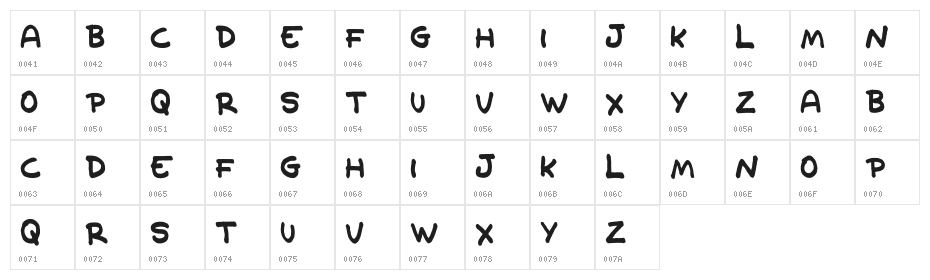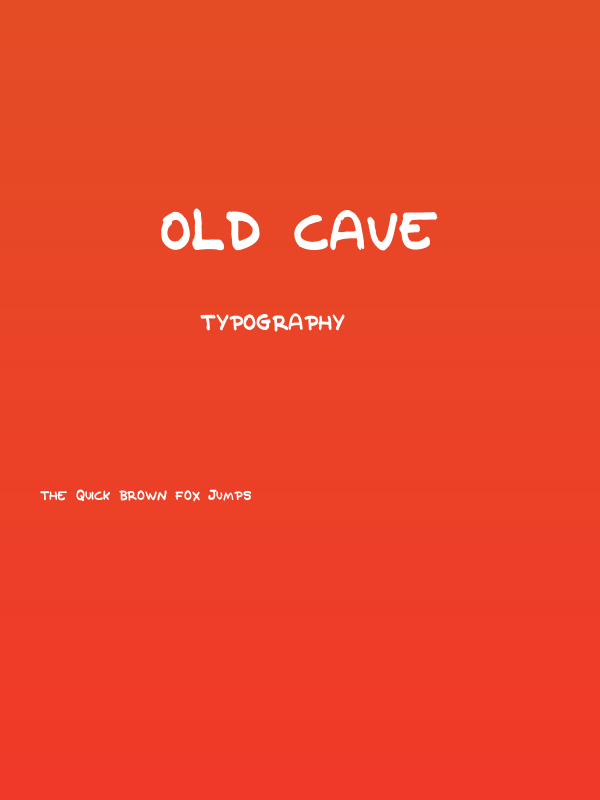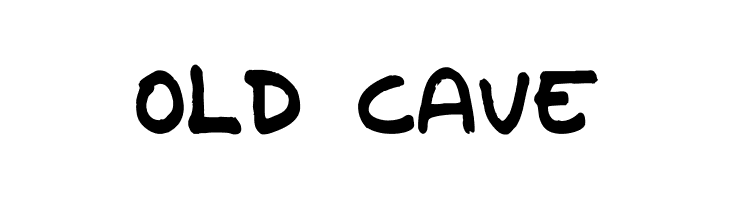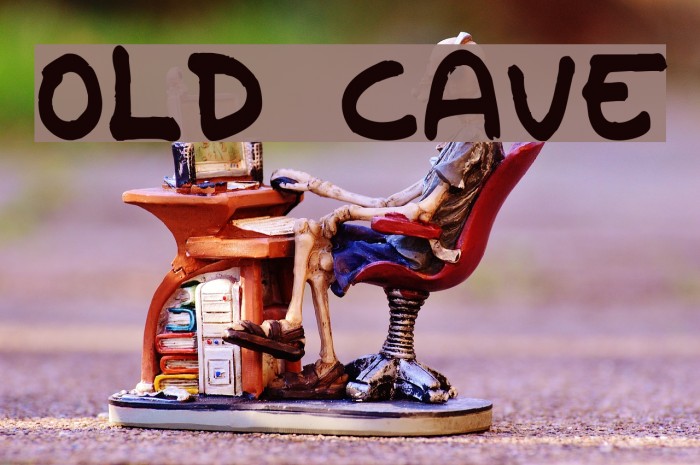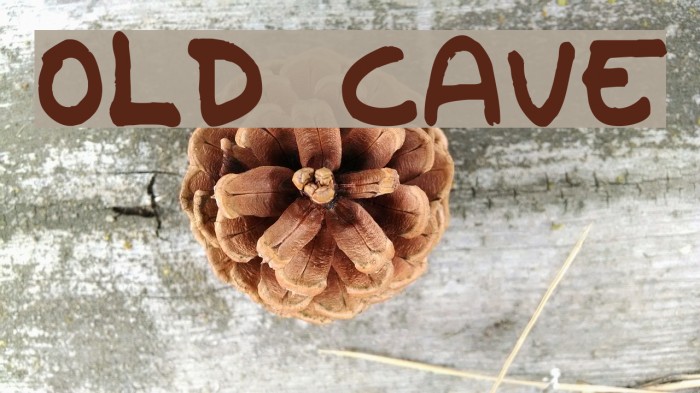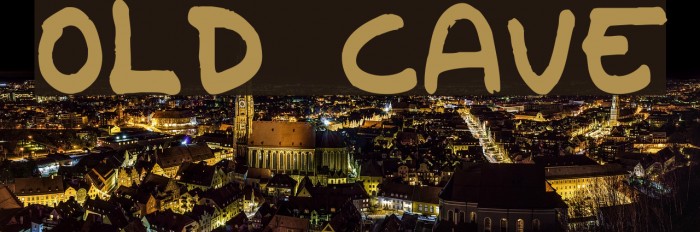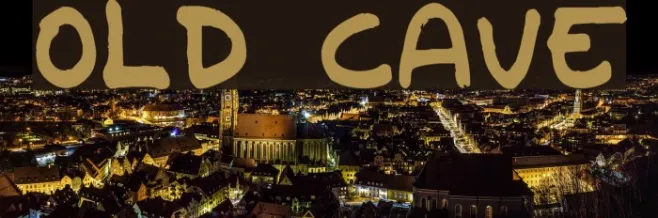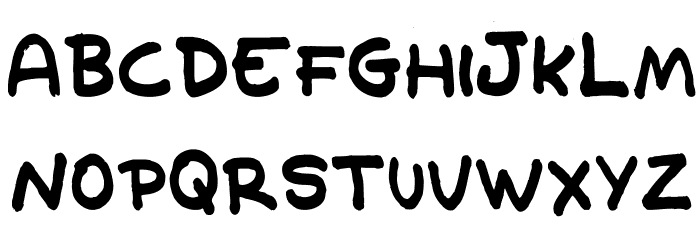
Old Cave Font
Old Cave Description
This font features a bold, hand-drawn style with a rugged and organic appearance. The characters are slightly irregular, giving them a natural and authentic feel reminiscent of ancient cave drawings. The strokes are thick and uneven, adding to the rustic charm. Each letter has a unique personality, with rounded edges and a playful, informal vibe. The font maintains a consistent weight throughout, ensuring readability while preserving its distinctive character.
| Overall Style | Rustic |
| Proposed Projects | Ideal for projects that require a natural, earthy aesthetic such as outdoor adventure branding, eco-friendly product packaging, or rustic-themed event invitations. |